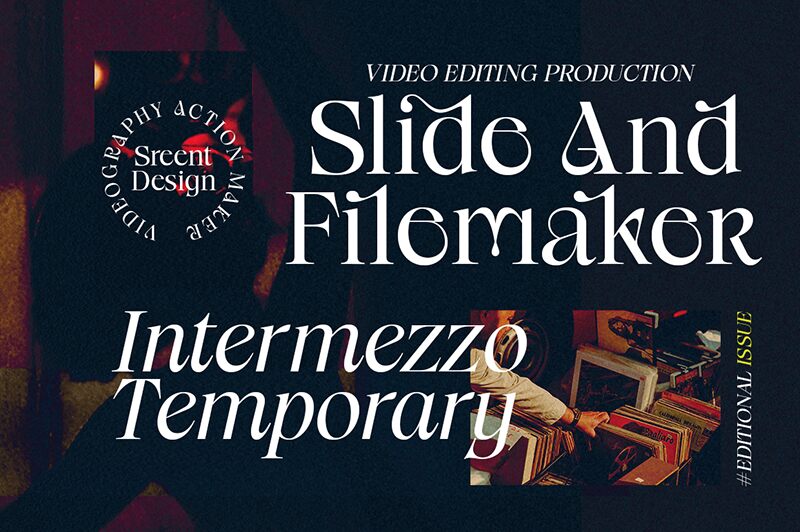
Radilen Aveline Regular
Radilen Aveline font by Dora Typefoundry exudes elegance and sophistication with its classic appeal and refined design. This professional font combines formal tones with artful characters, combining visual balance with inviting beauty for all. Its letters, by themselves, look fabulous; however, when put together properly, the true aesthetics of the font can be seen.
This free serif font is ideal for fashion magazine covers, branding projects like logos and labels, visual presentation templates such as posters or signs, invitation cards like weddings or parties invites, prints on garments/accessories; business cards design ideas some online platforms promote page headers.